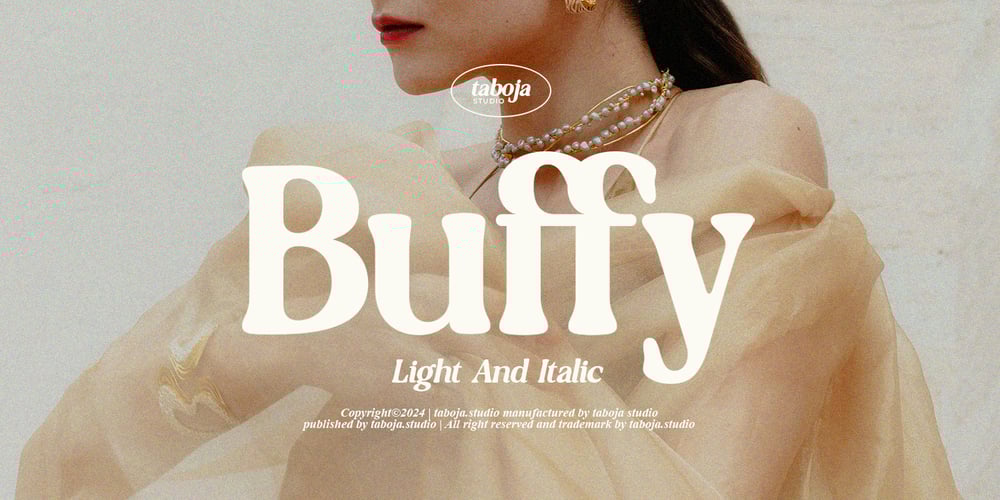
Buffy Retro Serif Font Family was designed by Yusilo Oktaprima Ardani and published by Taboja Studio. Buffy Retro Serif contains 2 styles and family package options. Say hello to Buffy Serif (Light & Italic), Elegant Serif Typeface with a unique and bold serif display style. This font combines classic serif elements with modern touches, creating visually striking and bold appearance.Buffy font would be perfect for making ideal graphic design projects, posters, and layouts that require unforgettable visual appeal.Includes: Light & italic Uppercase And Lowercase Alternates And Ligatures Numerals & Punctuation Accented characters Multilingual Support Unicode PUA Encoded We highly recommend using a program that supports OpenType features and Glyphs panels such as Adobe Illustrator, Adobe Photoshop CC, Adobe Indesign, or CorelDraw, so you can see and access all Glyph variations.While using this product, if you encounter any problem or spot something we may have missed, please don’t hesitate to drop us a message. We’d love to hear your feedbacks in order to further fine-tune our products.Stay creative and have a wonderful day.